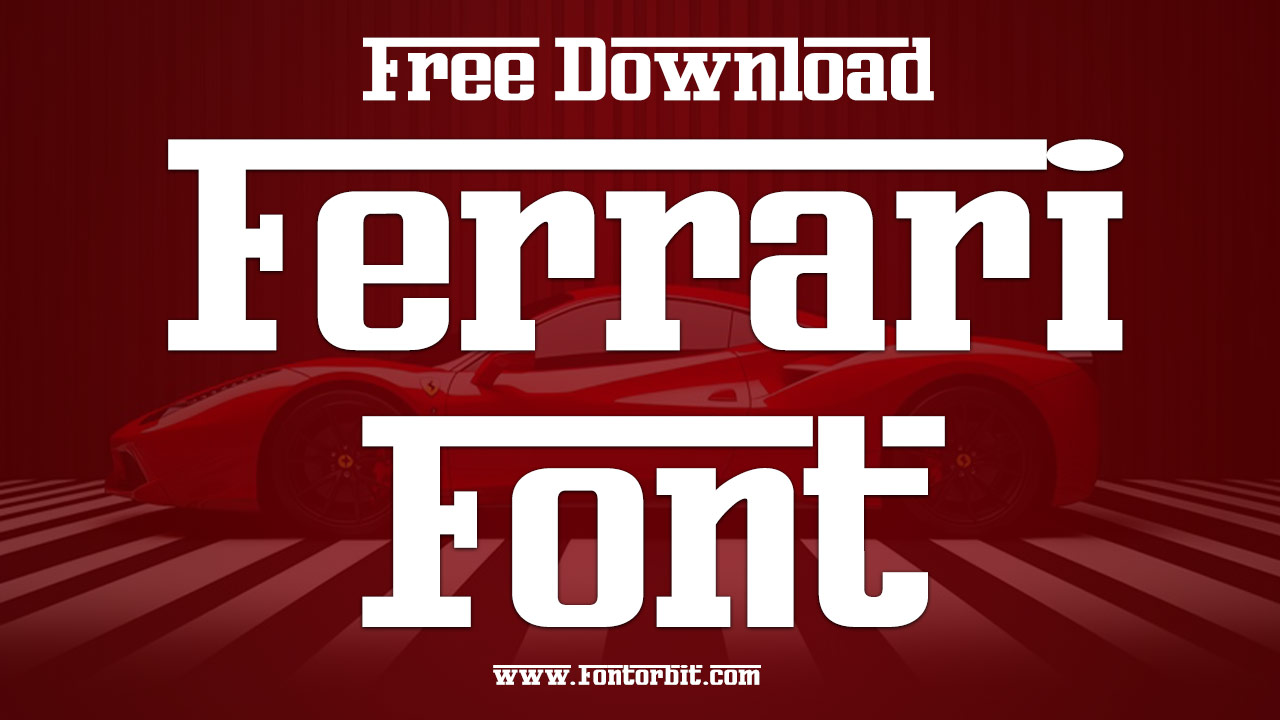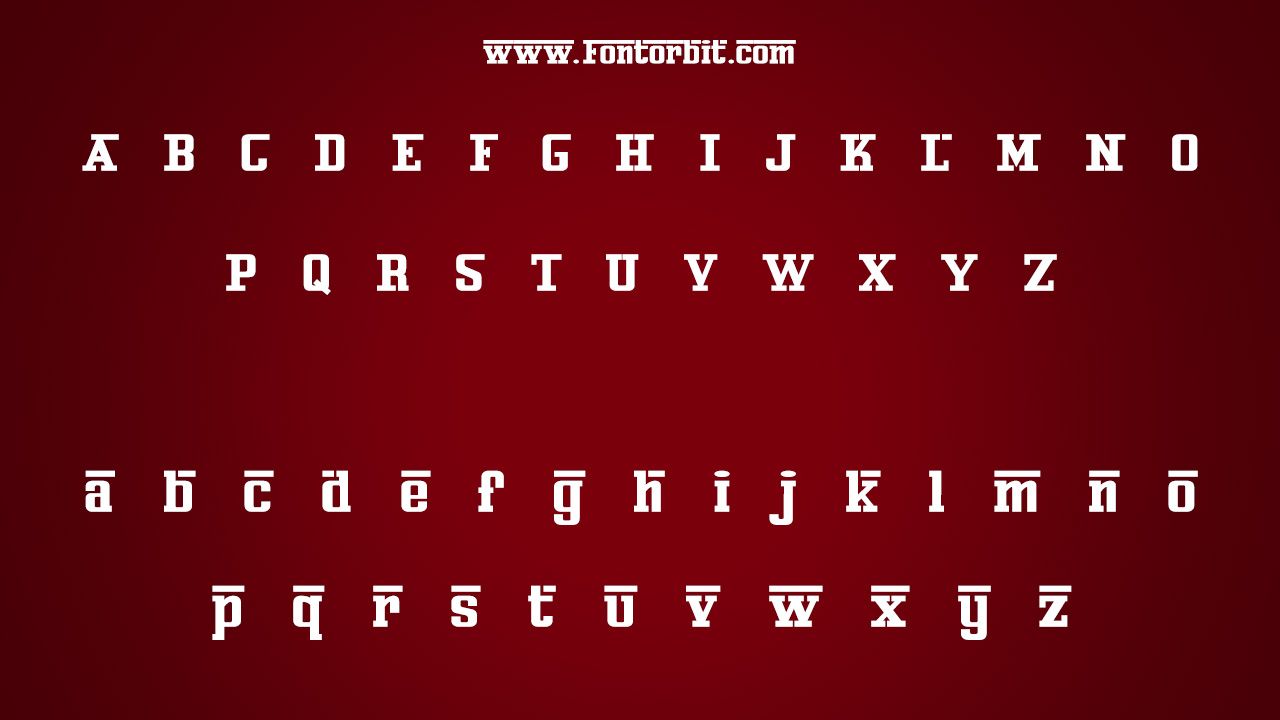
Ferro Rosso Font is a remarkable typeface inspired by the Ferrari logo. It is designed to echo the classic and elegant style of the iconic Italian sports car brand.
Types Of The Ferrari Font
a. Ferro Rosso Regular
The Ferrari font is ideal for promotional materials, including websites and fashion or apparel branding. It’s also perfect for magazine and brochure covers, corporate presentations, and high-profile ad campaigns, offering a sophisticated and dynamic typeface that complements luxury and performance themes.
Ferro Rosso Font, created by Michael Hagemann and available from FontMesa, echoes the elegance of the Ferrari logo. Free for personal use, it’s ideal for luxury branding and high-end design, adding a refined and classic touch to your projects.
2.What Are The Key Elements To Look For In A Ferro Rosso Font Design?
Look for bold, slab serif letterforms that convey sophistication and luxury, closely mirroring Ferrari’s branding style.
3.How To Incorporate Ferro Rosso Font Into A Luxury Product Design?
Use it for prominent text elements, such as logos or product names, to emphasize sophistication and align with high-end branding.
Slab serifs, bold display fonts, and classic typefaces are ideal for conveying a luxurious and impactful brand image.